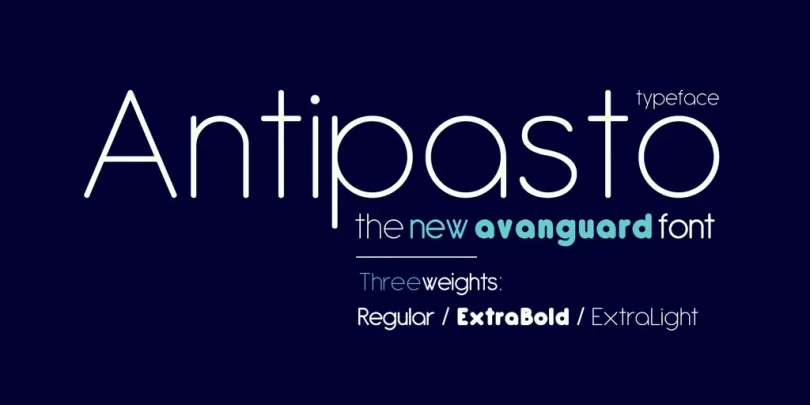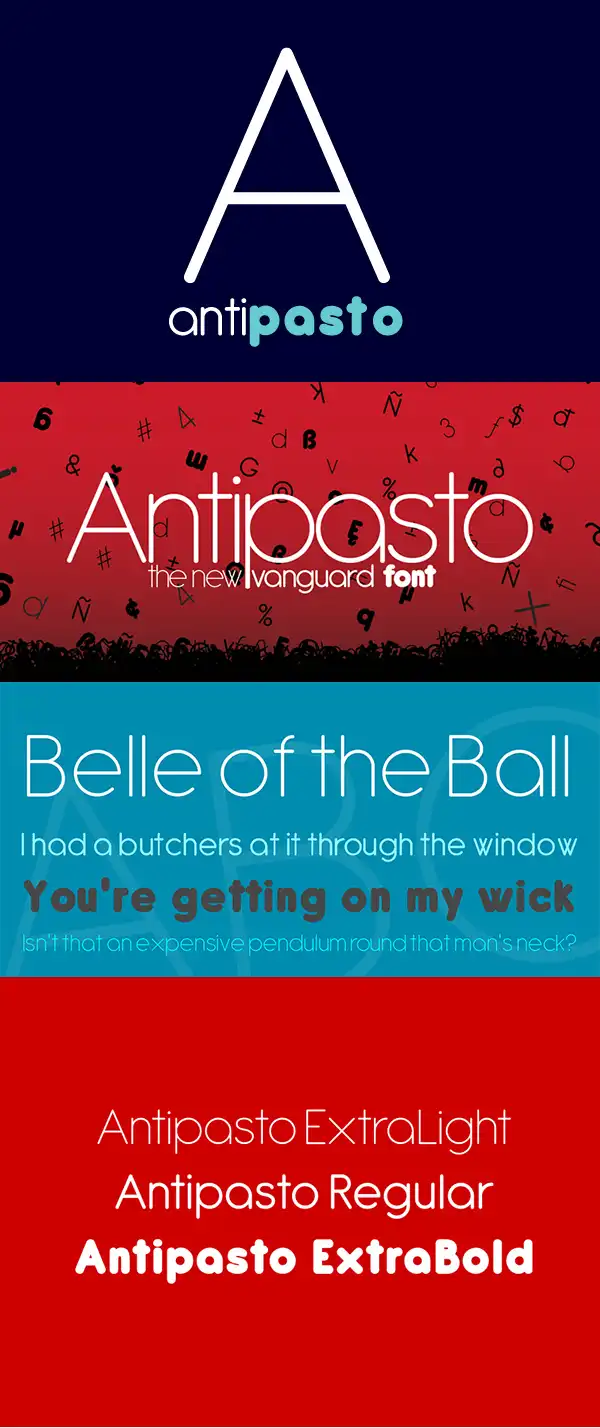
Antipasto Font Family | Free Typography
Antipasto is a soft round font and really smart, created by Cosimo Lorenzo Pancini. It is coordinated, compatible and based on Arista font collection. Now with 2 brand new weight, ExtraBold and ExtraLight to make your designs pop and attractive. Whether its flyers, brochures or social media covers or posts designs, you will always stand at the top!